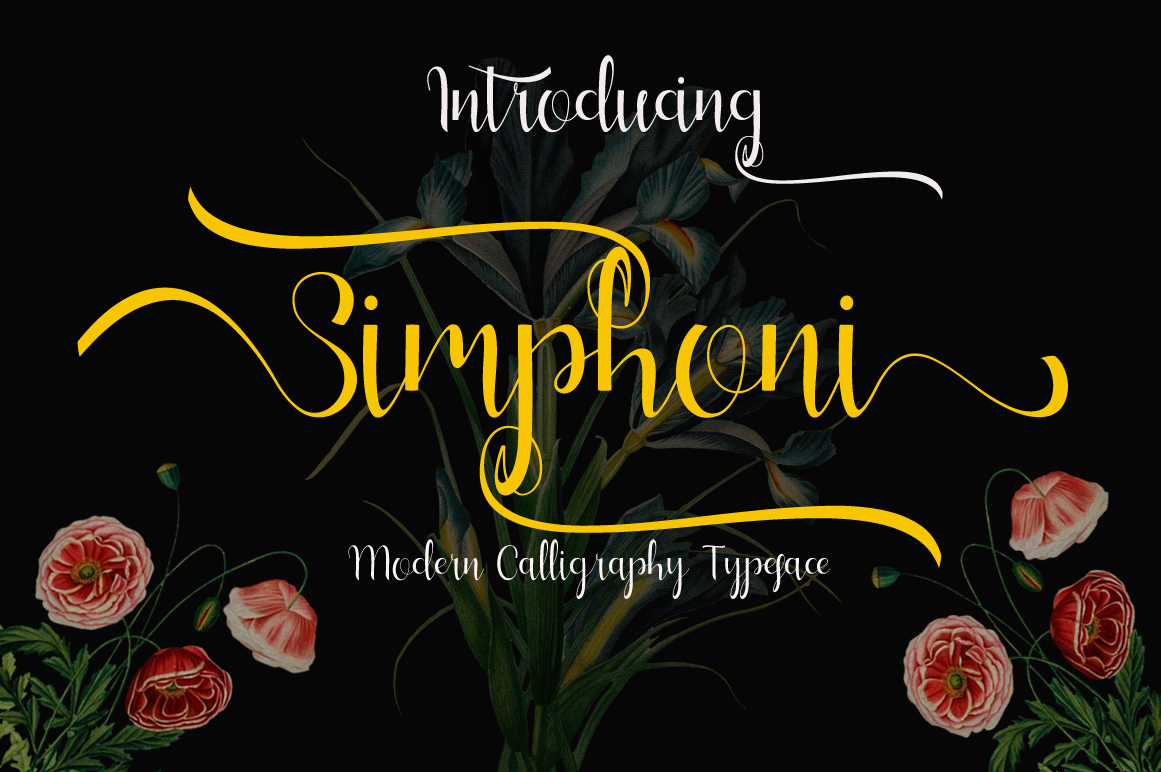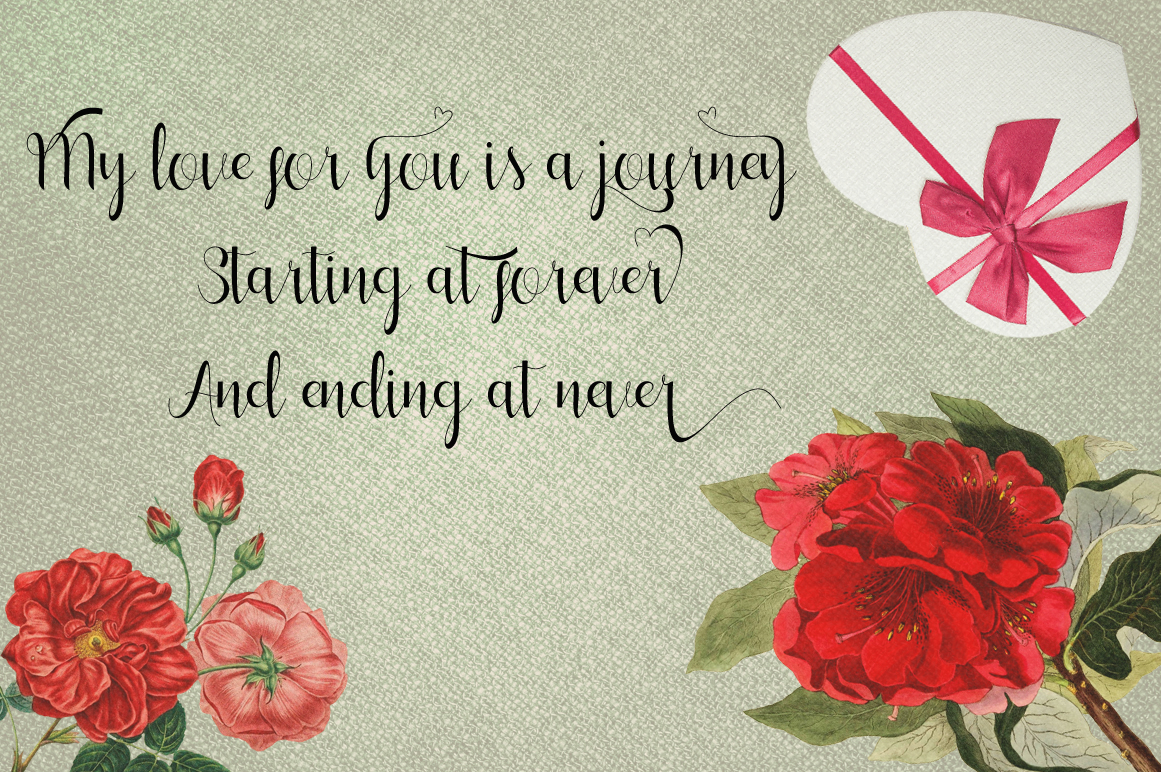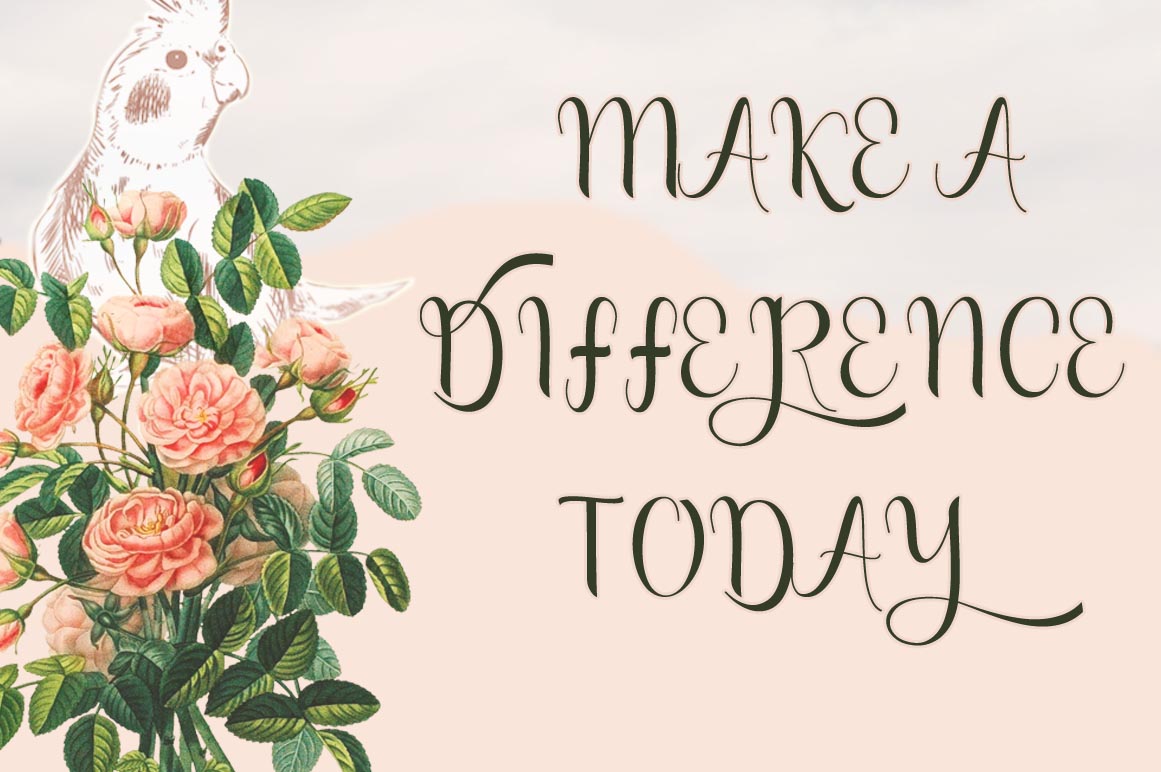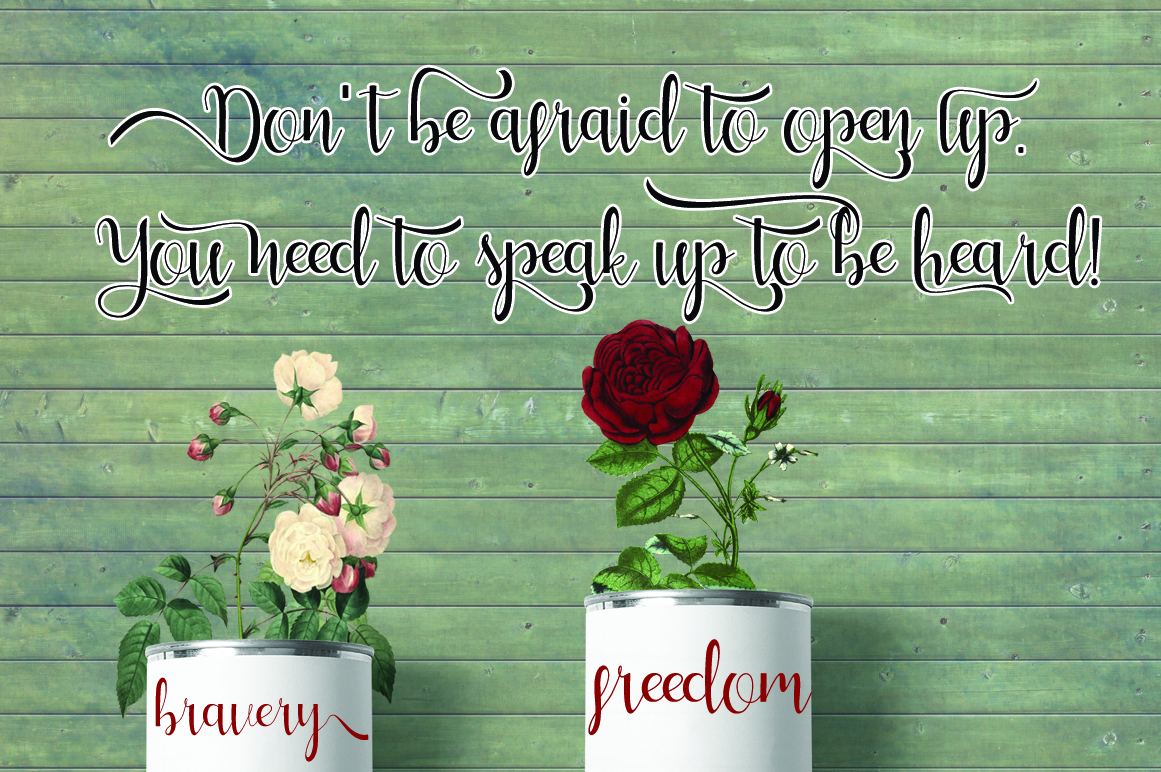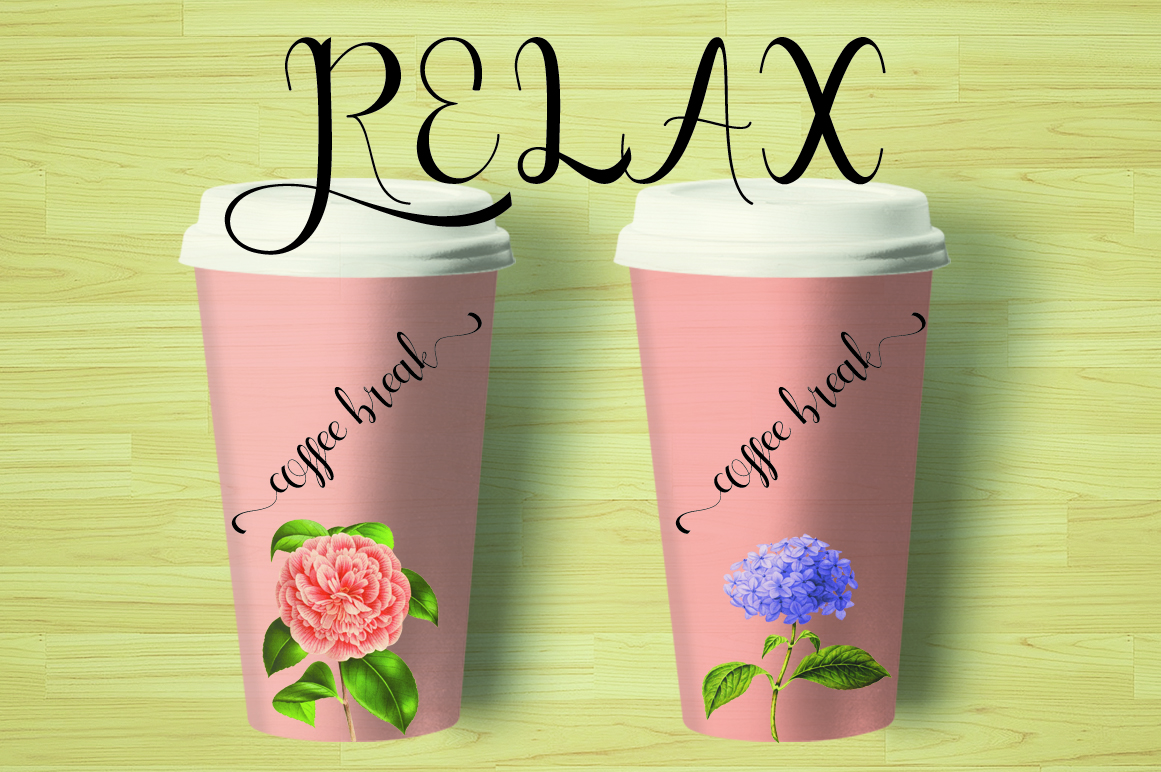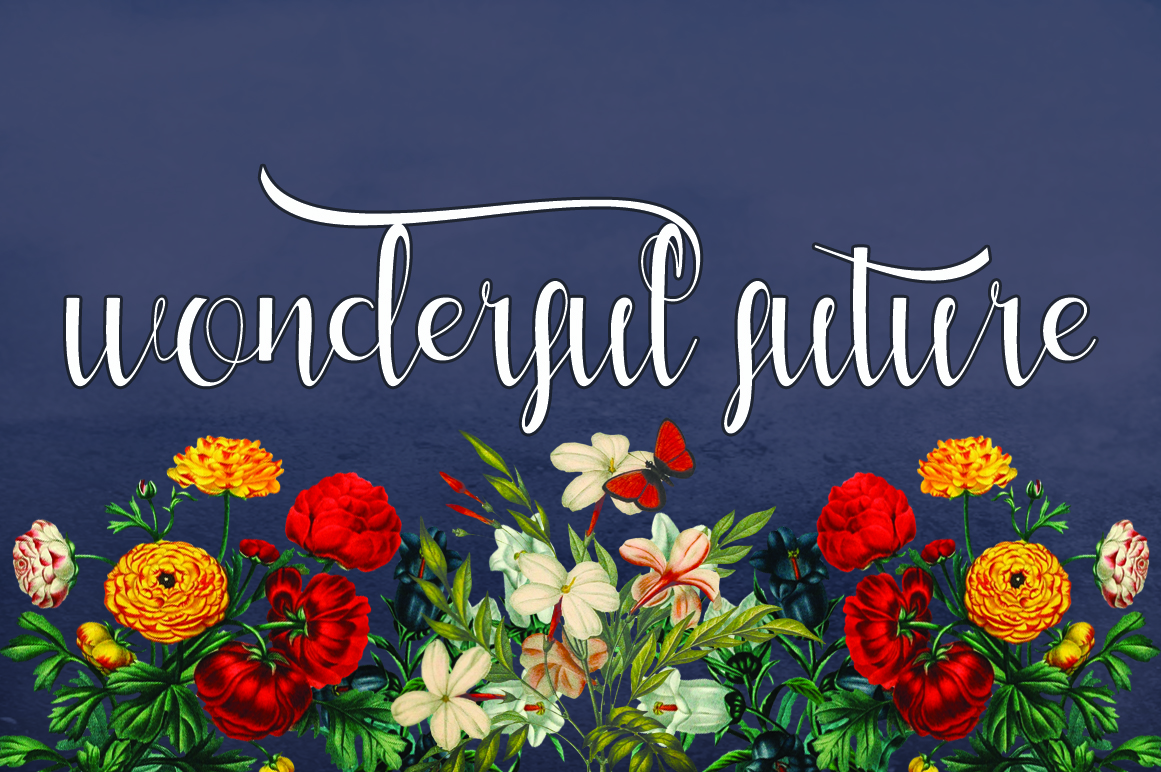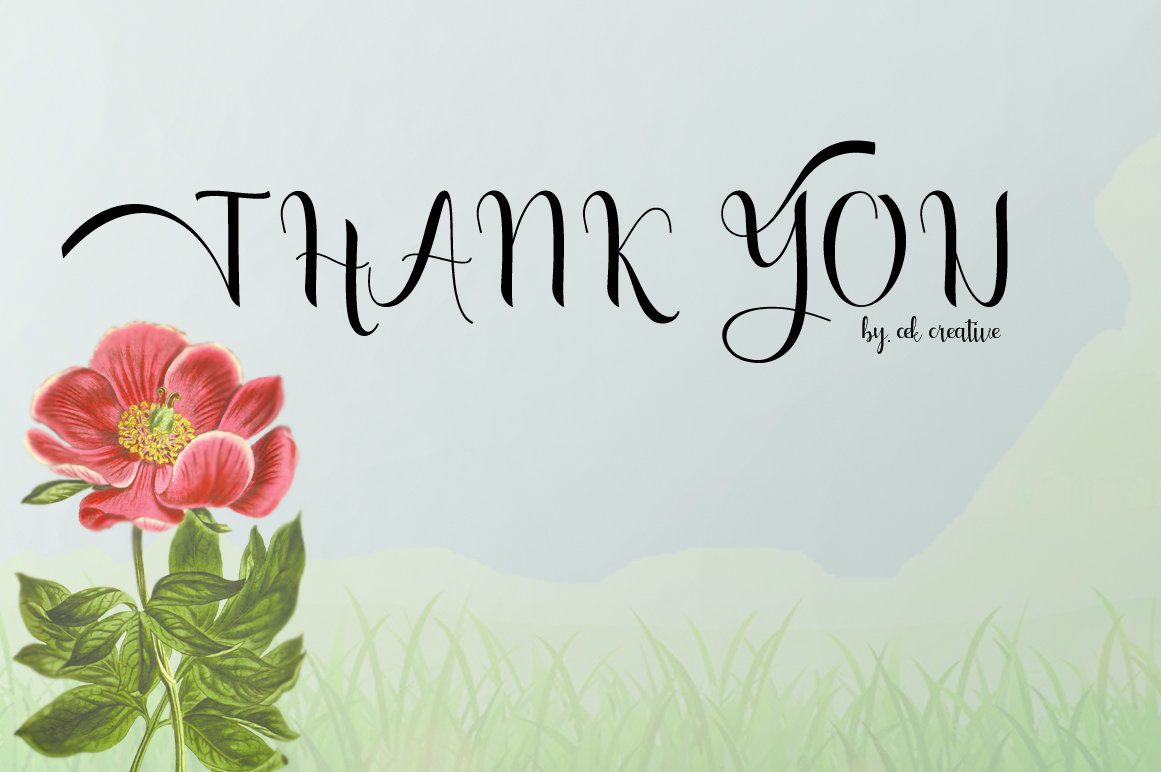
HomeScript FontsSimphoni Font Script Fonts Simphoni Font FacebookXPinterestWhatsApp Simphoni Font Poster 2 Simphoni Font Poster 3 Simphoni Font Poster 4 Simphoni Font Poster 5 Simphoni Font Poster 6 Simphoni Font Poster 7 About Simphoni Font Simphoni is a stunning script font that features elegant long swashes. DOWNLOAD NOW People also explored Magical Flower Font Yes, I Do! Font Princessa Font Minimalist Style Font Sunfa Font Blondey Rich Font Strange Planet Wallner Font Soulmate Font 344 0 TagsSimphoni Font Previous articleOceania FontNext articleVracter Font LEAVE A REPLY Cancel reply Comment: Please enter your comment! Name:* Please enter your name here Email:* You have entered an incorrect email address! Please enter your email address here Website: Save my name, email, and website in this browser for the next time I comment. Personal Use Free Maharany Personal Use Free Read more about this font Mariyam Personal Use Free Read more about this font Nickainley Personal Use Free Read more about this font Husky Stash Personal Use Free Read more about this font BLOG The 10 Best Handwriting Fonts to Add Personality to Your Designs 10 of the Best Handwriting Fonts for Adding Personality to Your Designs There will undoubtedly be no other better choice than handwriting fonts to give... Transform Your Website: Elevate Your Typography with 7 Best Web Font Generators Best Fonts for T-Shirt Design – Top 2025 Picks To increase your work productivity, choose the most readable fonts.